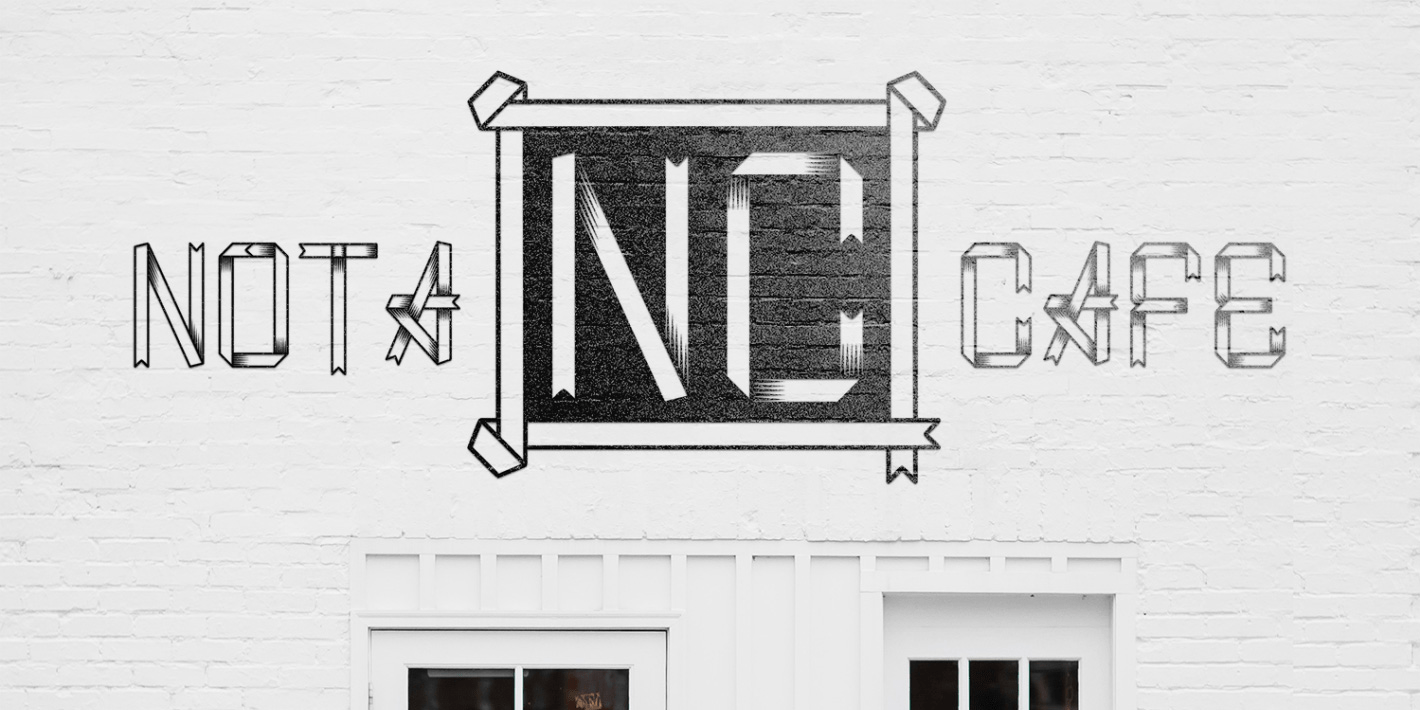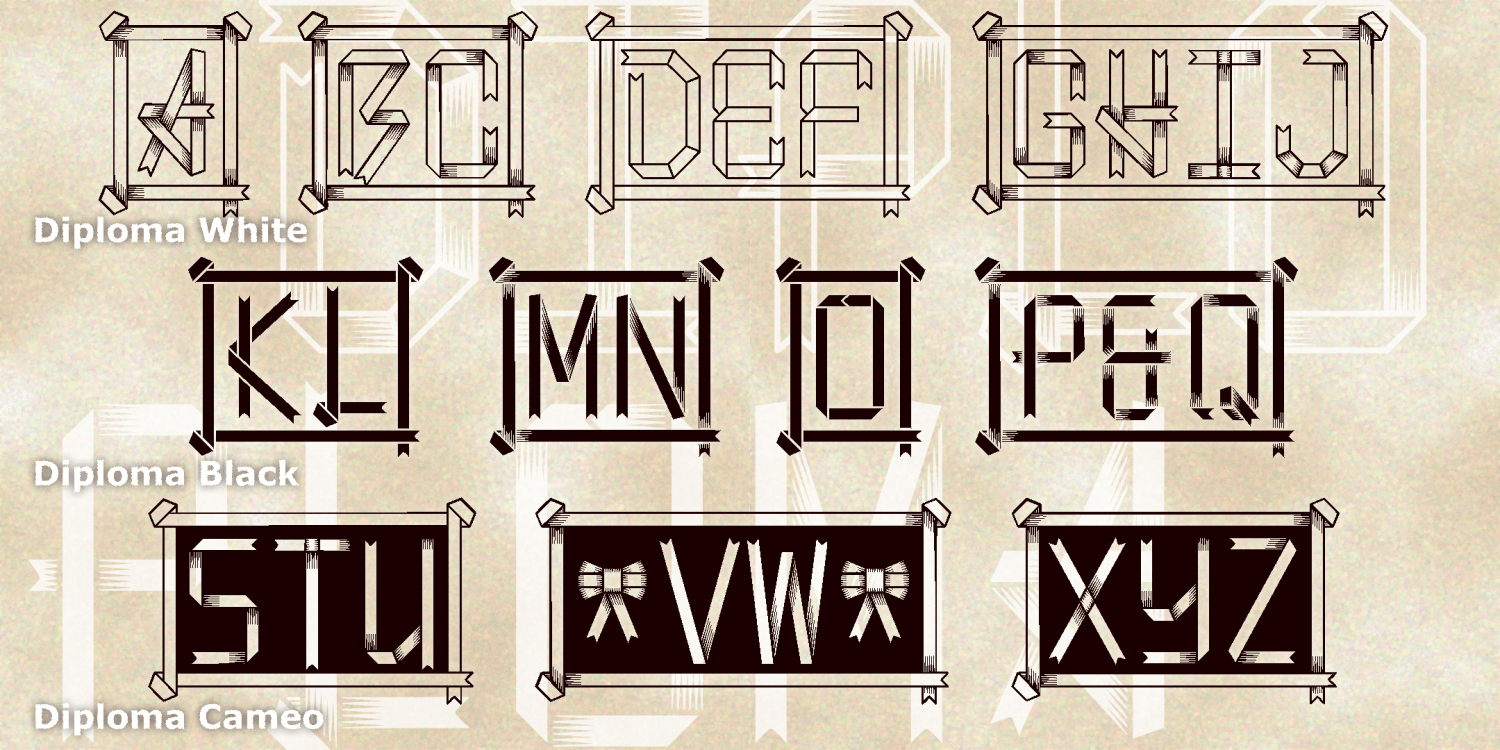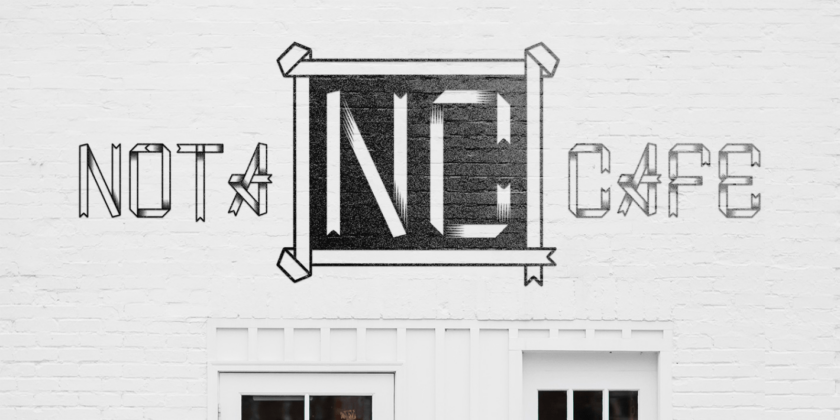
Diploma Monograms
Diploma Monograms are a unique style of letters that looks like folded ribbons. With the simplicity of a bookmark and the formal elegance of an official seal, this set of 3 fonts lets you make distinctive custom monograms of 1-4 letters. The possibilities…